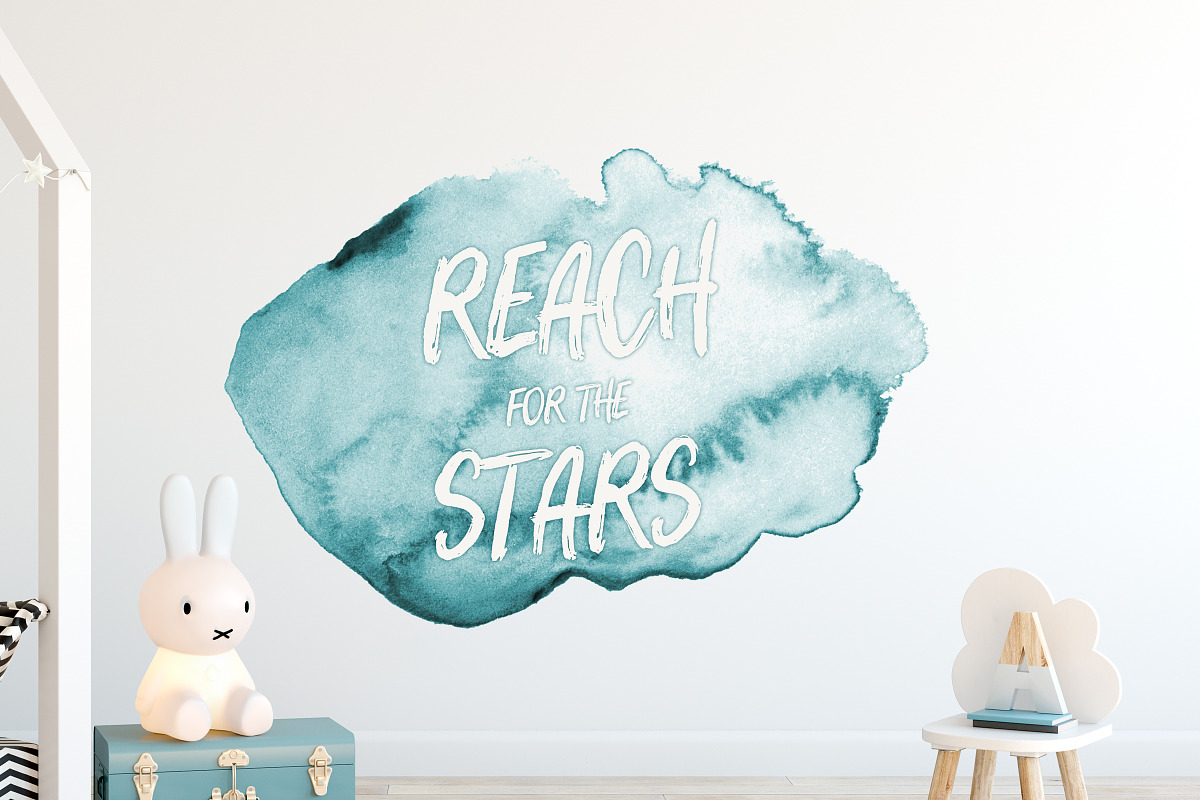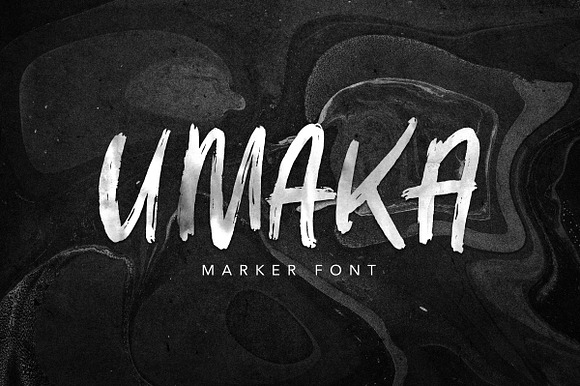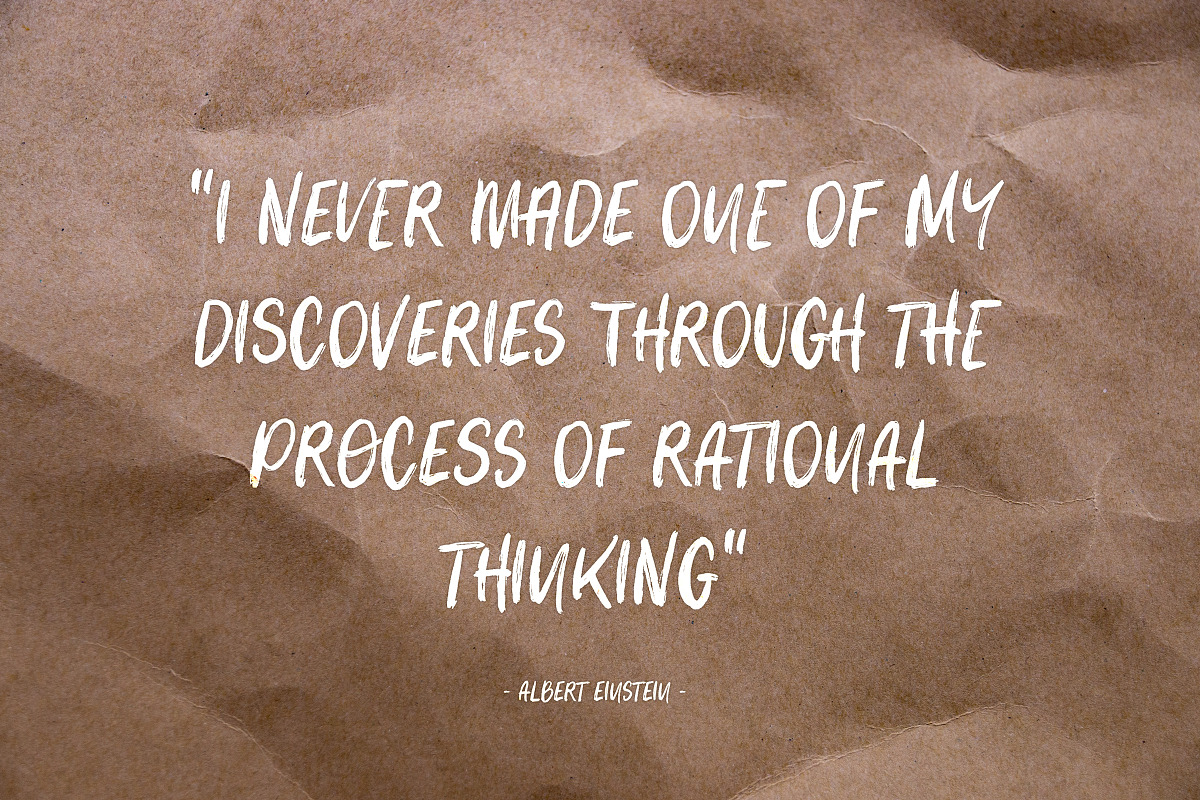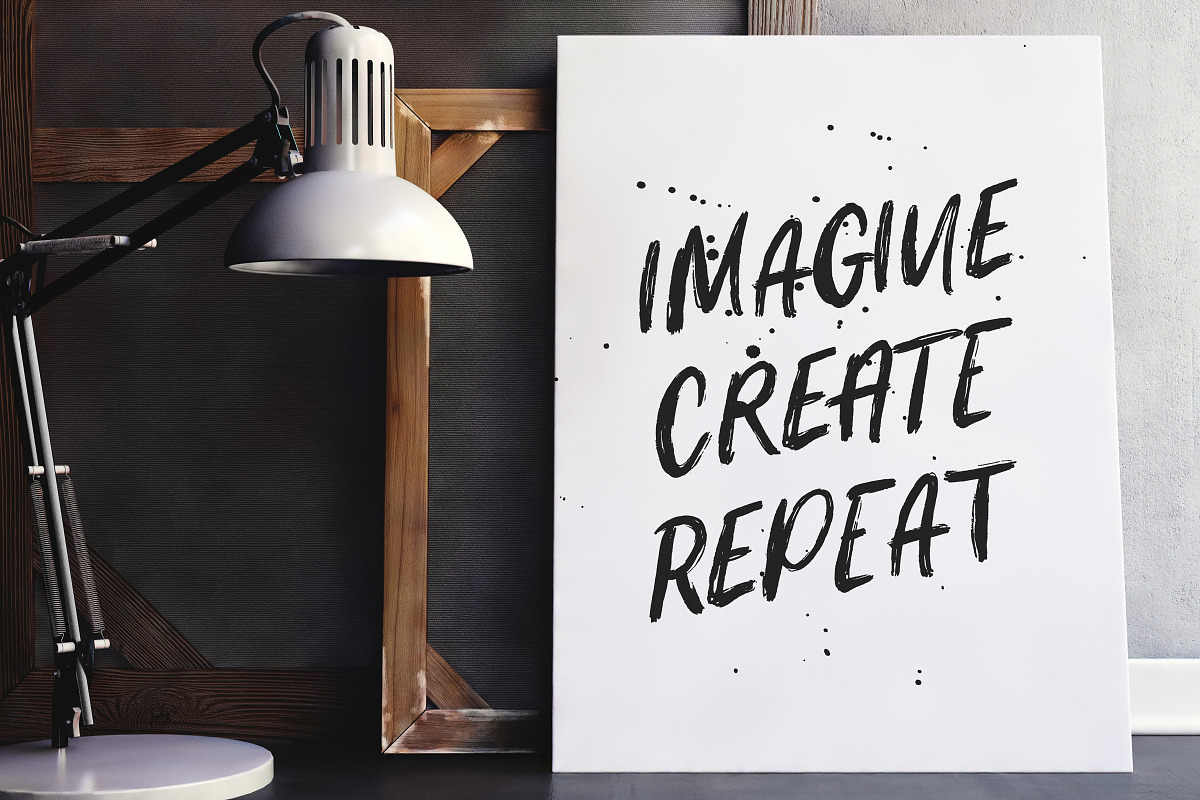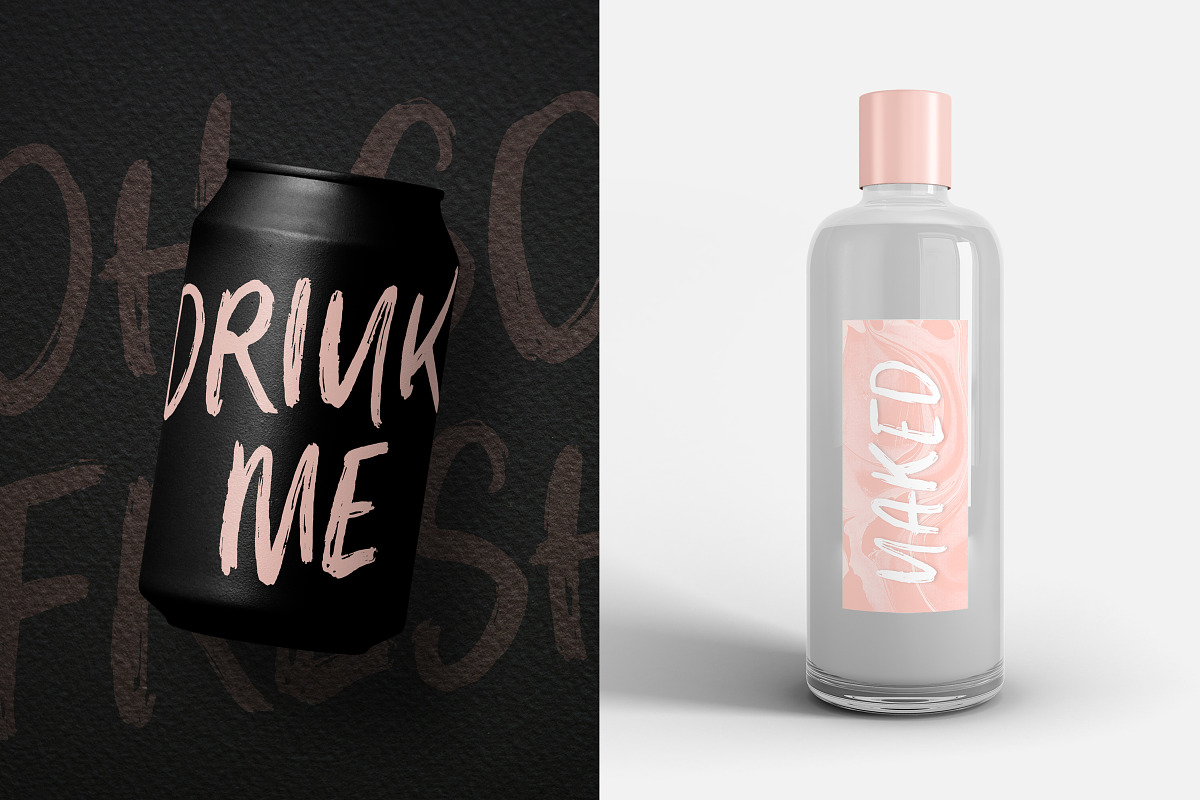
Umaka - Marker Font
UMAKA - a Handmade Marker Font with Alternates
UMAKA is a rough and authentic dry brush / marker font for lots of occasions. It includes all uppercase letters PLUS a whole set of alternates (for each letter). It also comes with numbers, special double letter ligatures and basic punctuation. Opentype-capable software is required to access the special alternates and ligatures.
- It includes all uppercase letters PLUS a whole set of alternates (for each letter).
- It also comes with numbers, special double letter ligatures and basic punctuation.